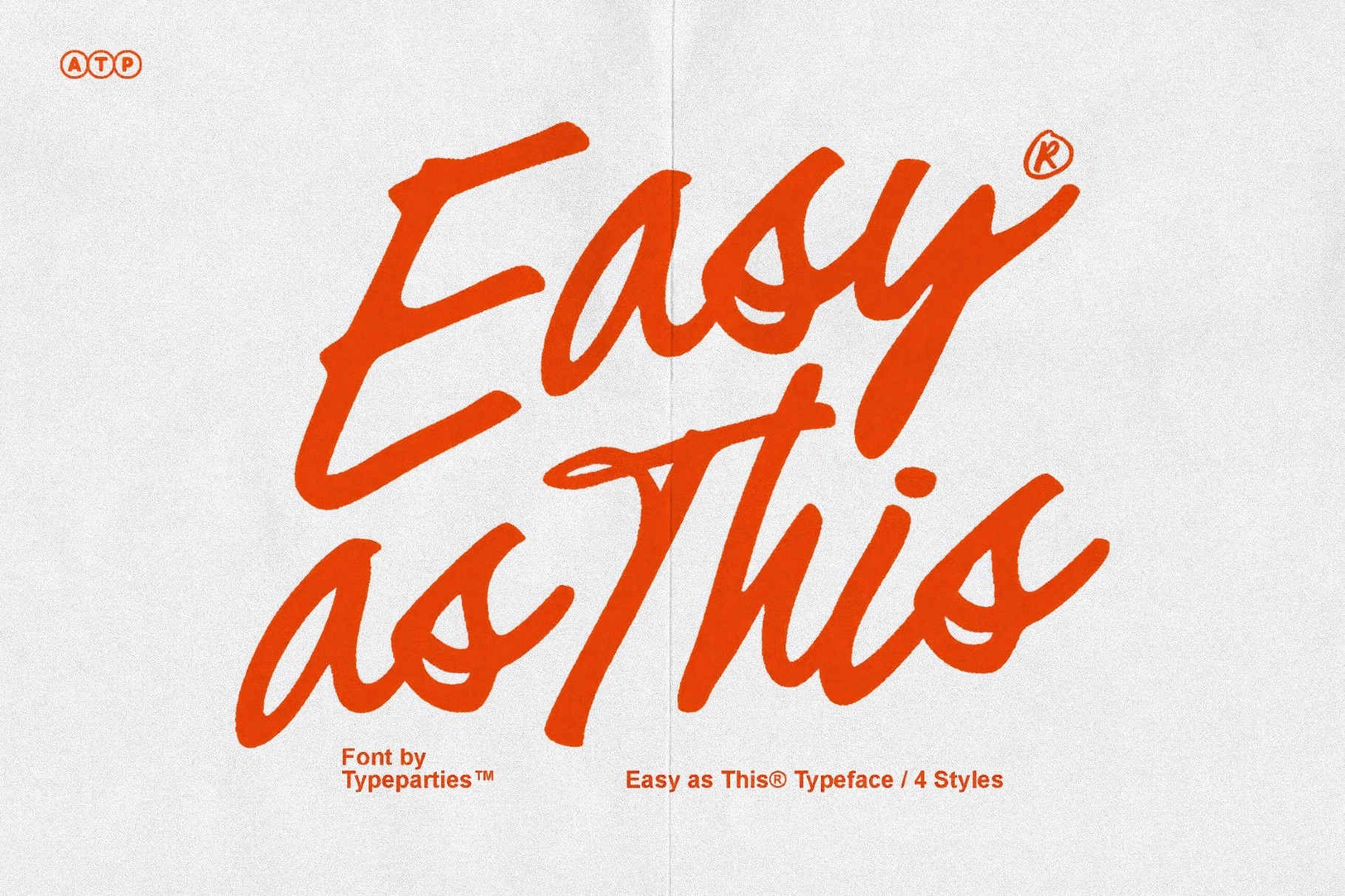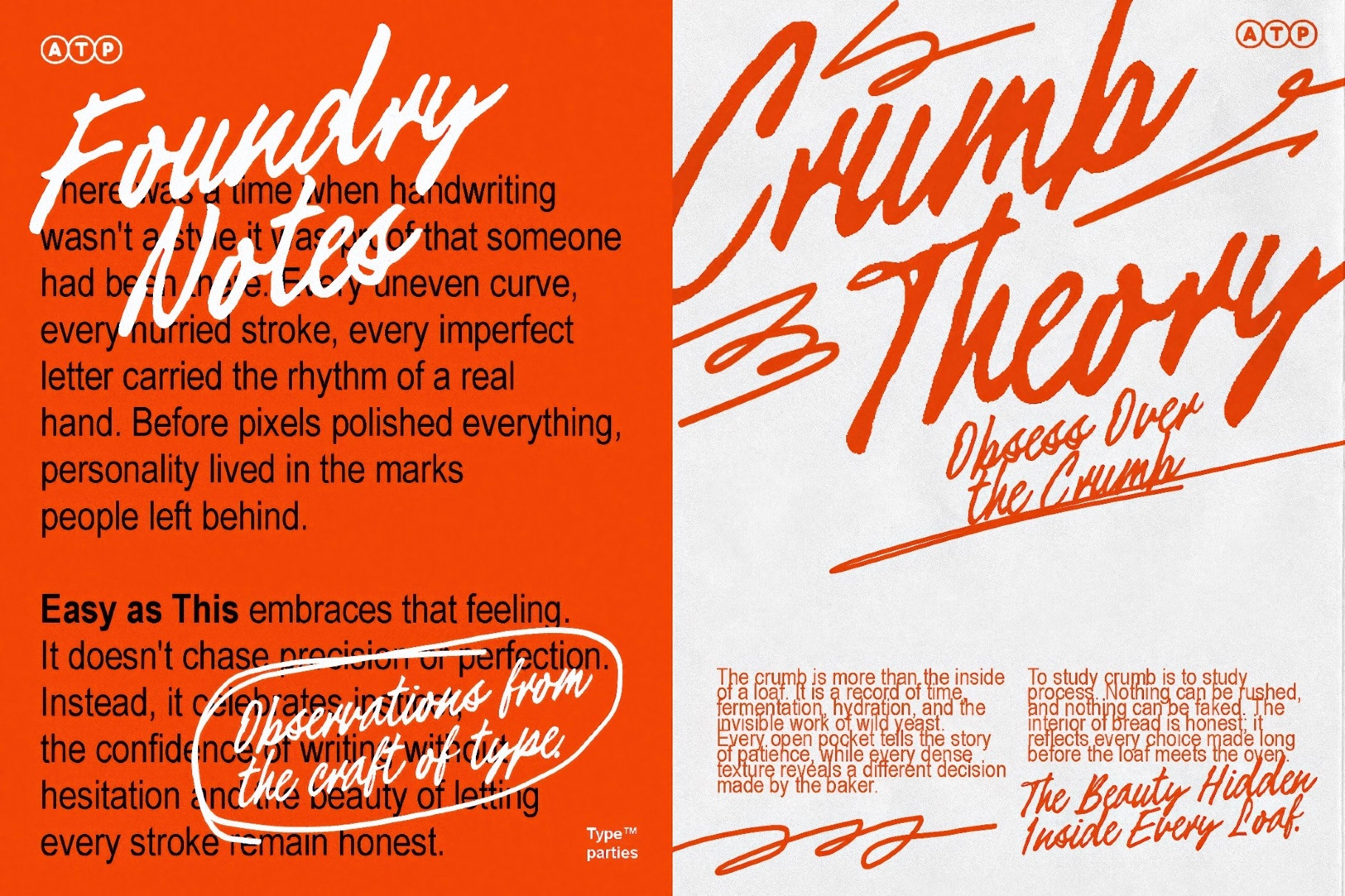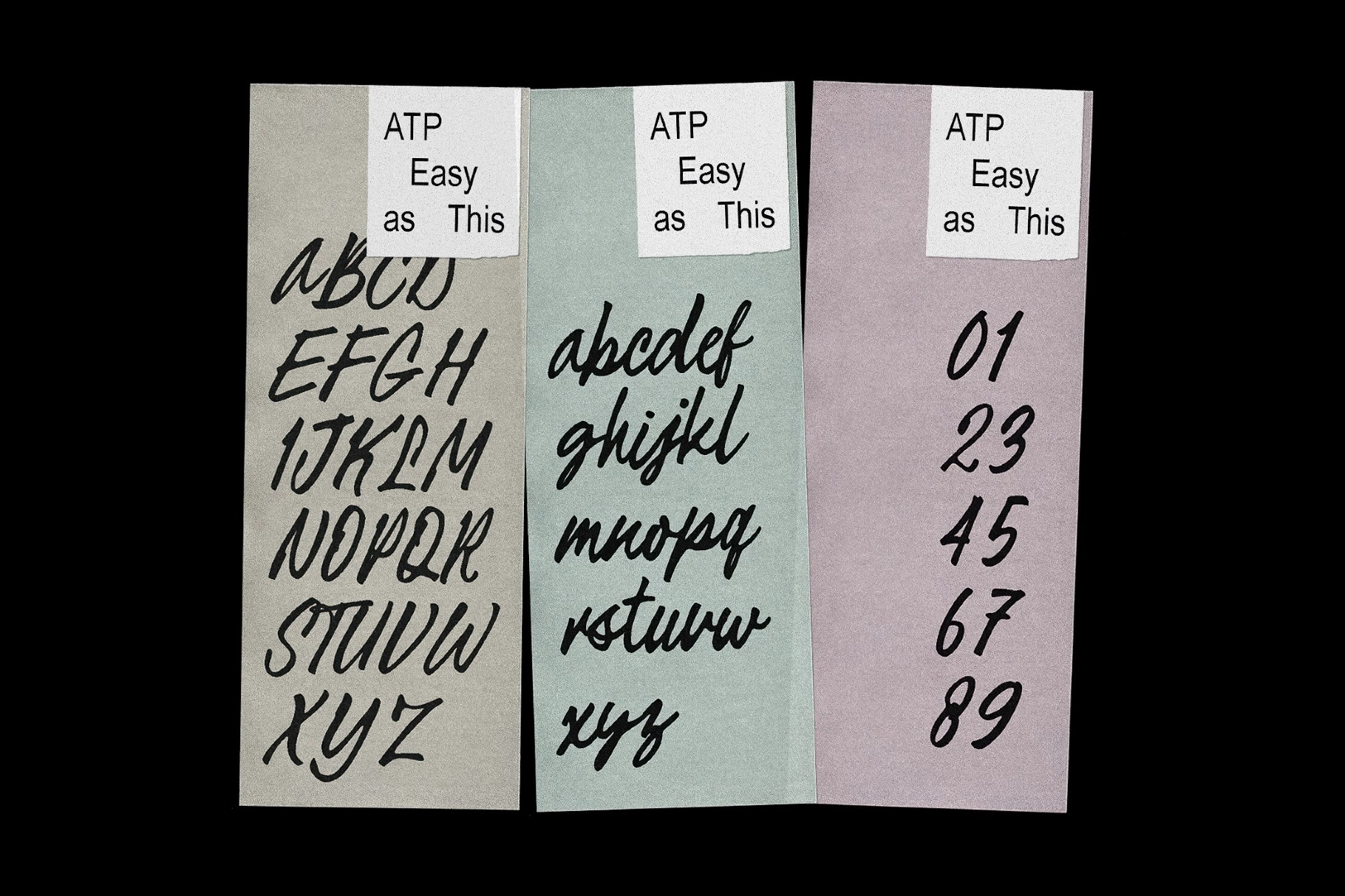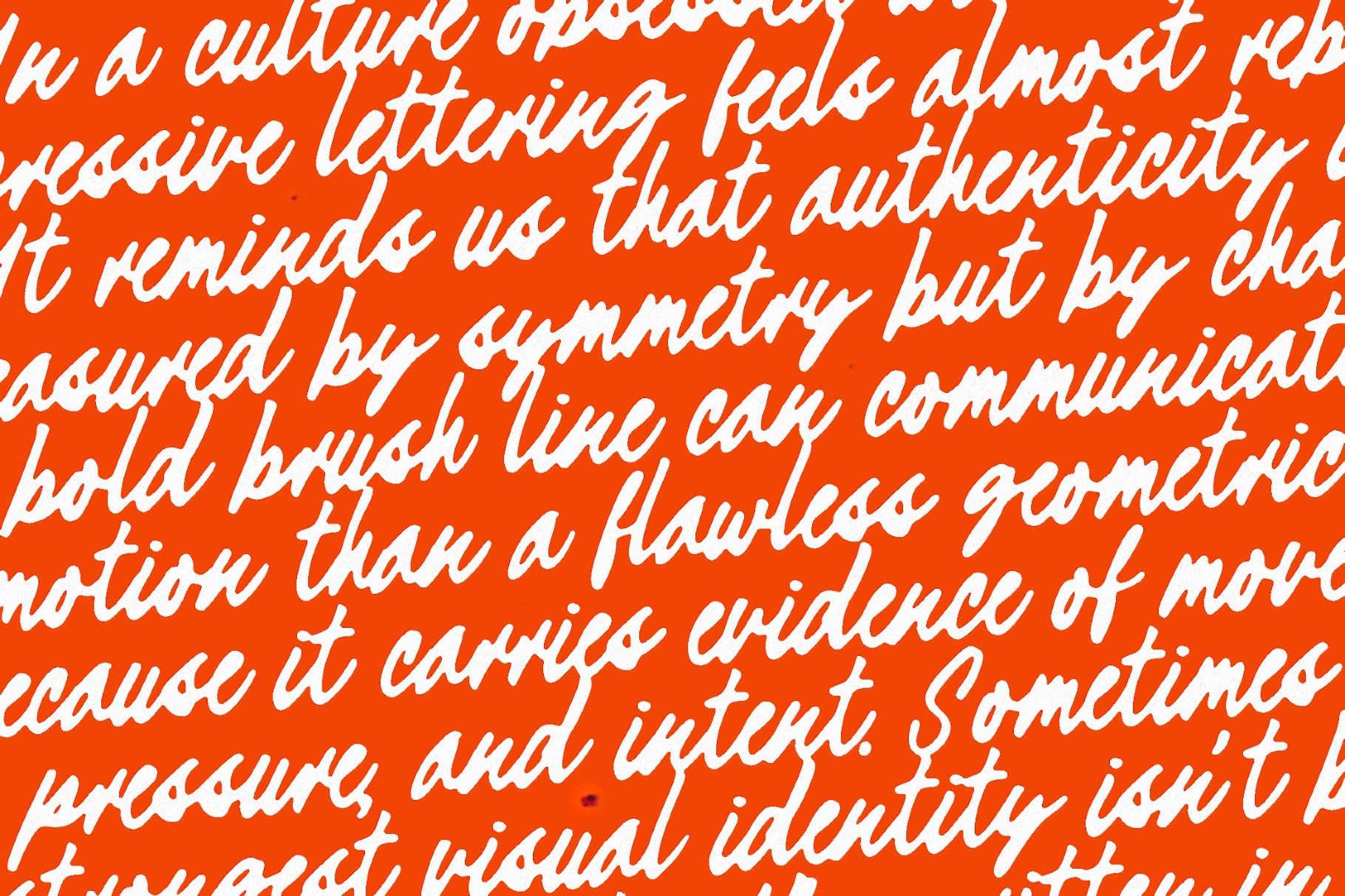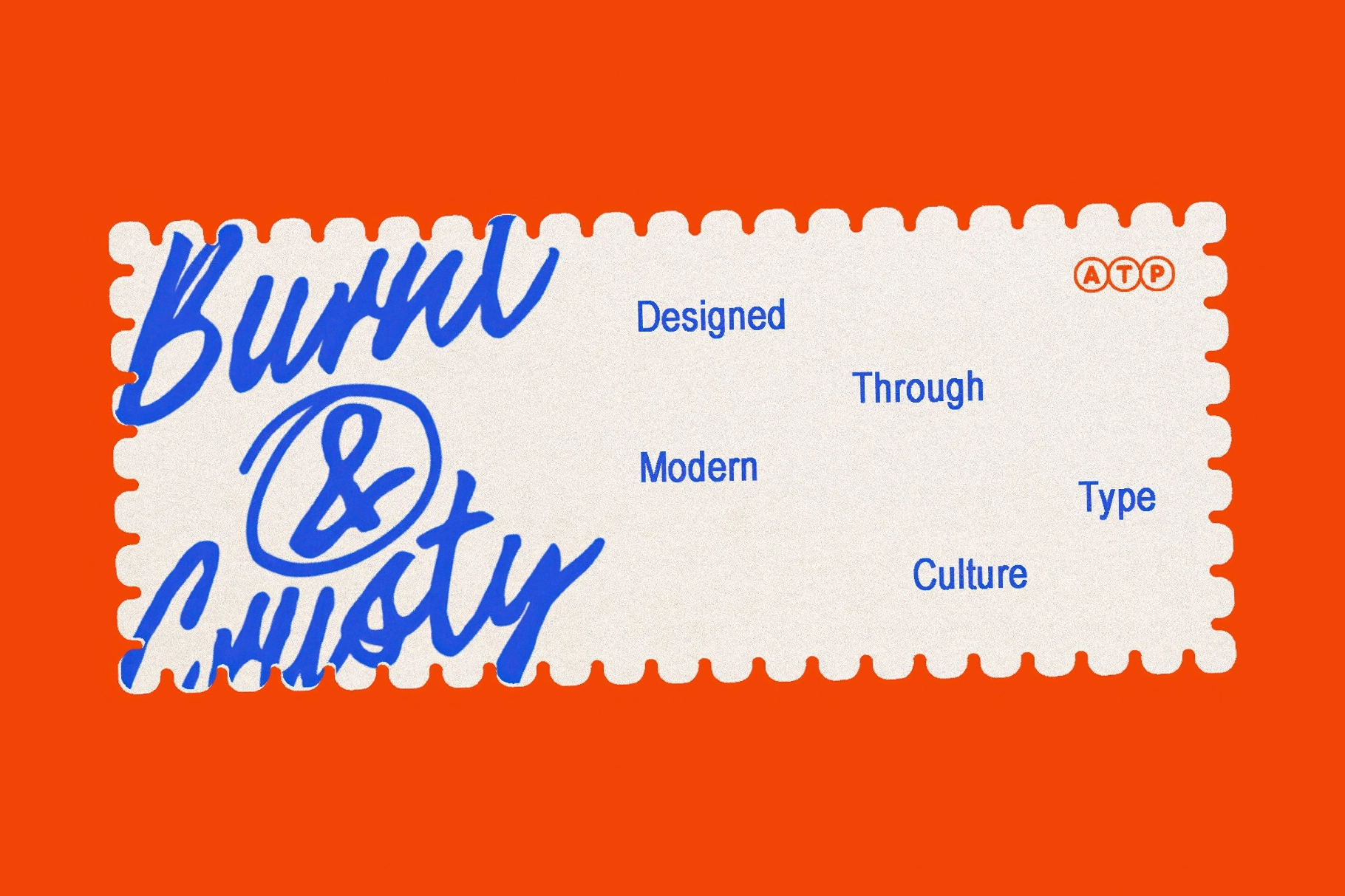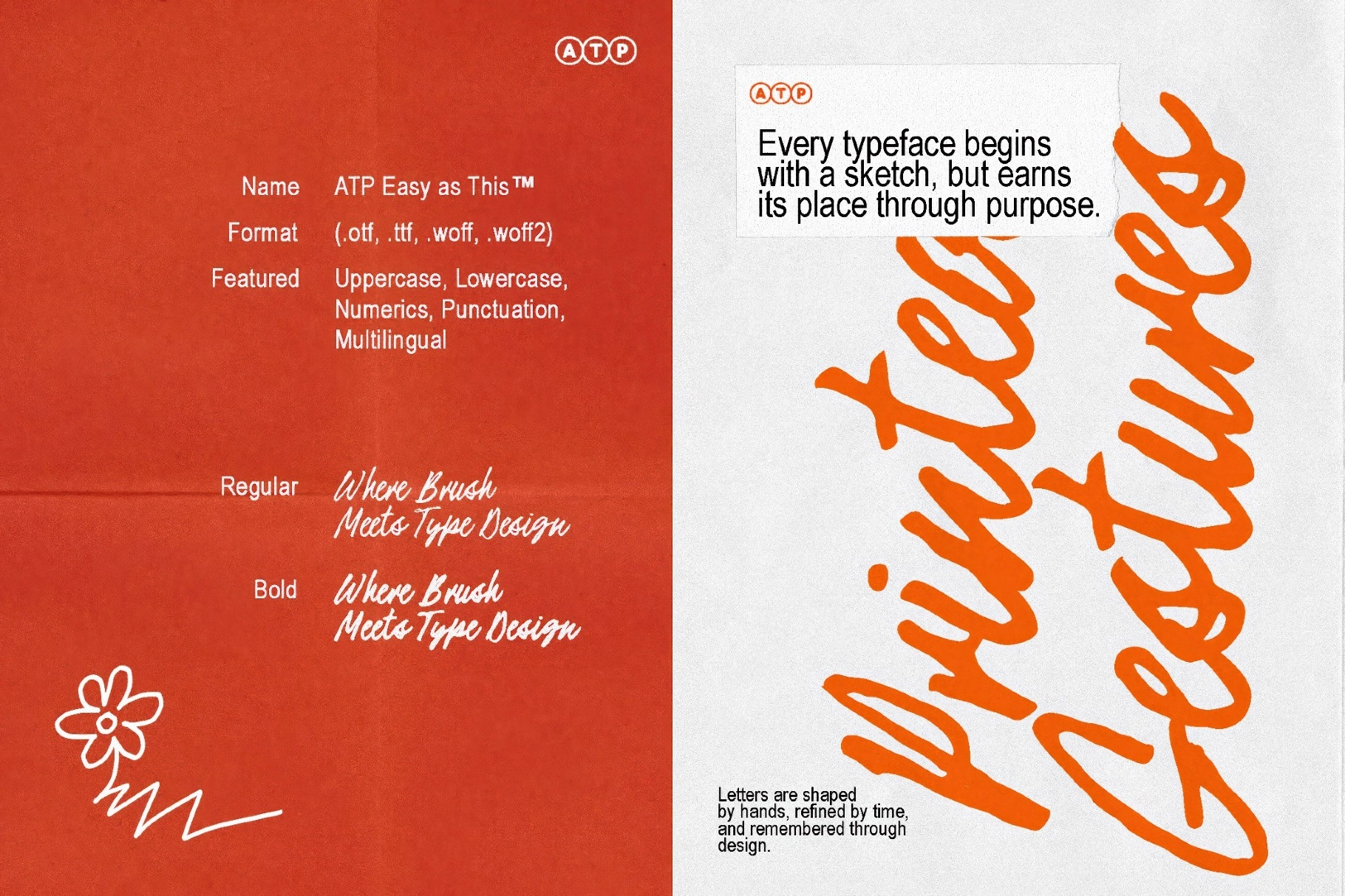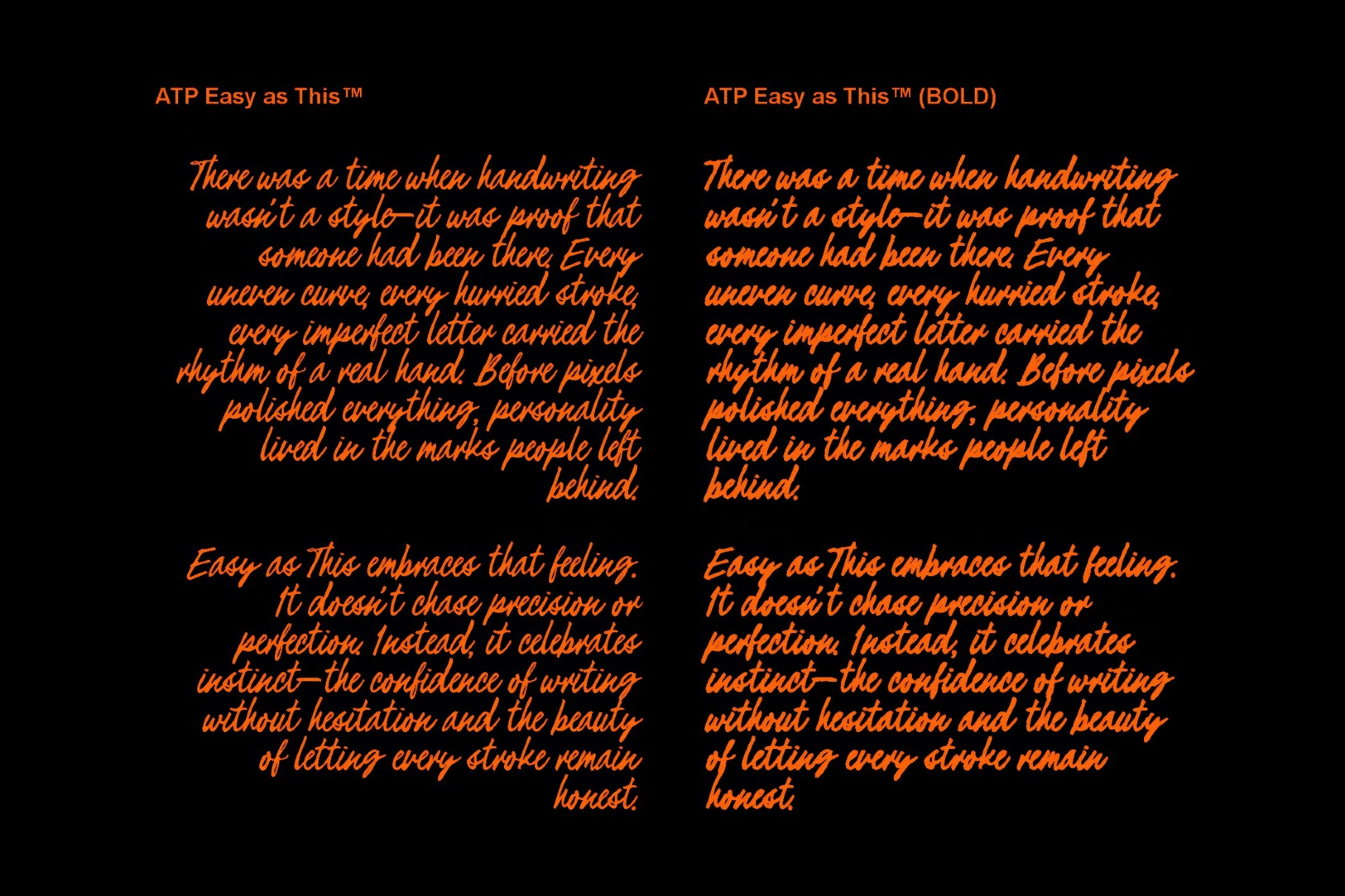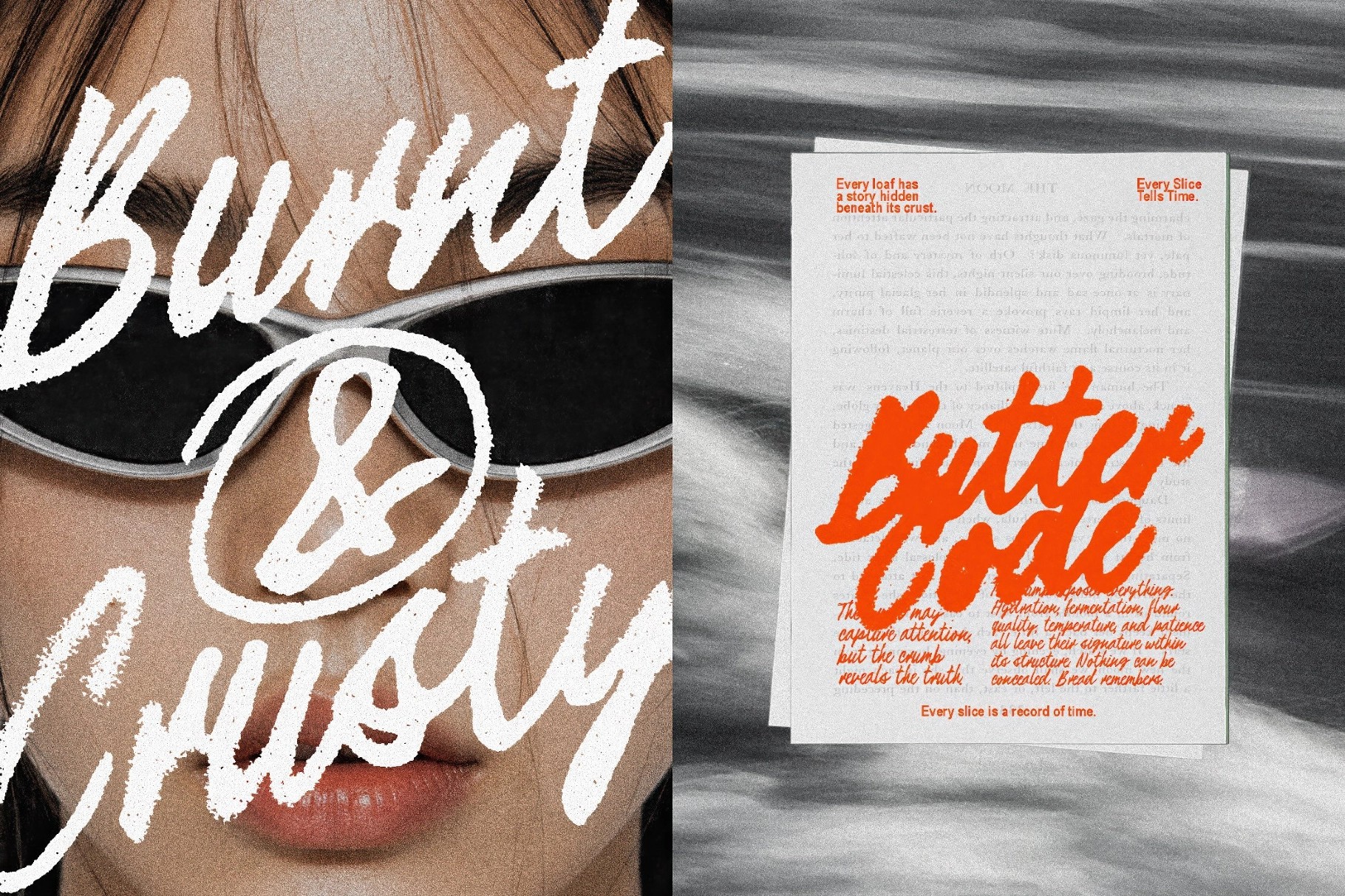
Easy as This - Handwritten Script
ATP Easy As This
Bold Textured
Textured
Easy as This runs runs a thick brush stroke through every letter, ink pooling unevenly along the curves the way a worn brush drags across coarse fabric. Loops connect loosely, keeping the energy hand-dragged and uneven instead of locked into a tidy rhythm. The font comes with 4 styles that carry the same rough texture across different weights.